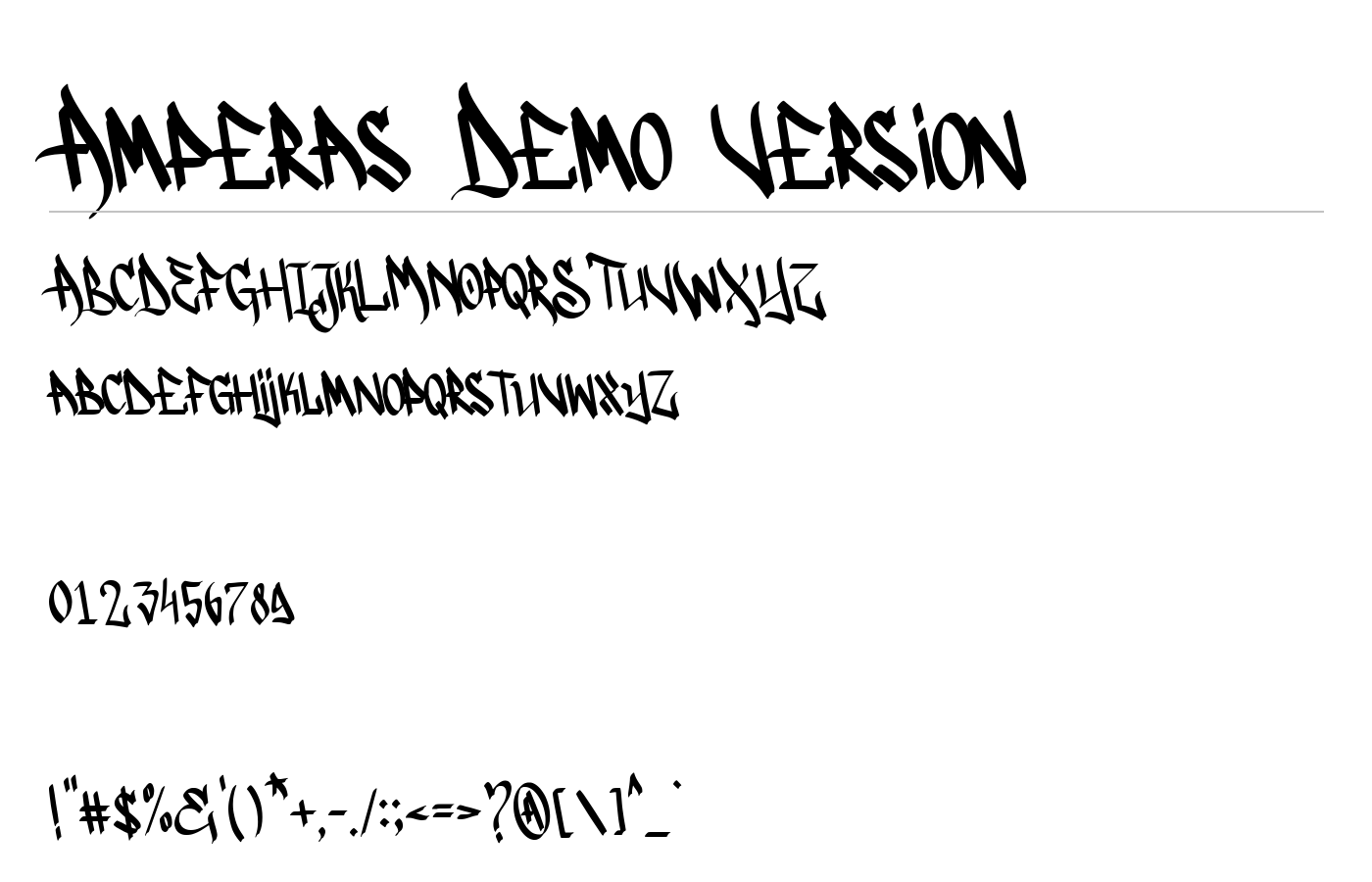
Amperas Demo Version is a bold, highly stylized display font with a striking urban graffiti feel, characterized by sharp, angular strokes and irregular letterforms. This font features condensed spacing and a dynamic, edgy personality, making it ideal for creative projects that seek to convey energy and rebellion, such as posters, album covers, or streetwear branding. With its distinctive, artistic flair, Amperas brings a modern, rebellious vibe that stands out in headline use rather than body text.
Amperas Demo Version Font
About Amperas Demo Version Font